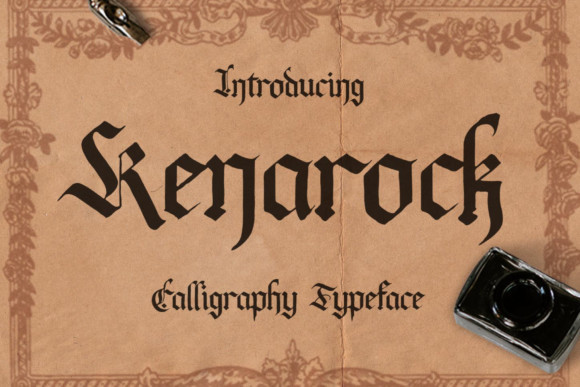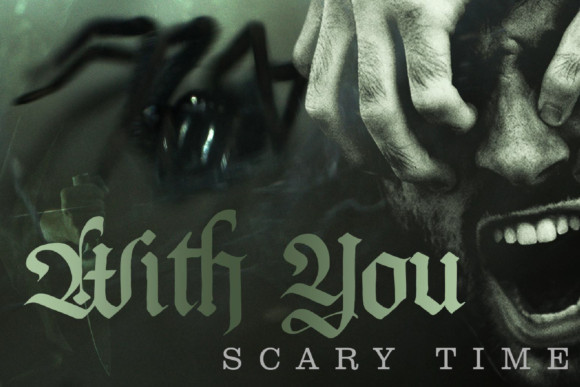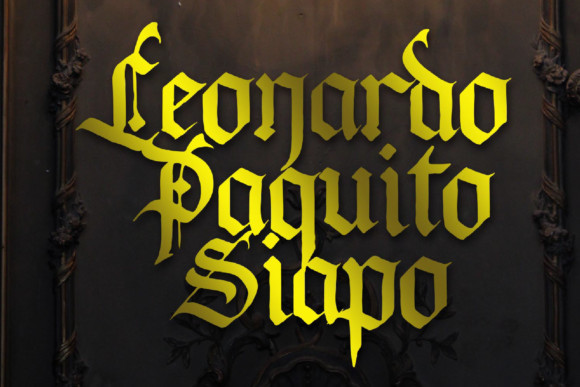
Kenarock Blackletter Font
Kenarock is a fancy decorative font with a unique style. Use it for any design project that requires a personalized appearance!